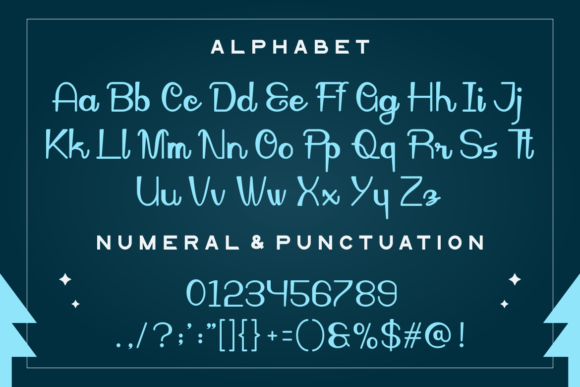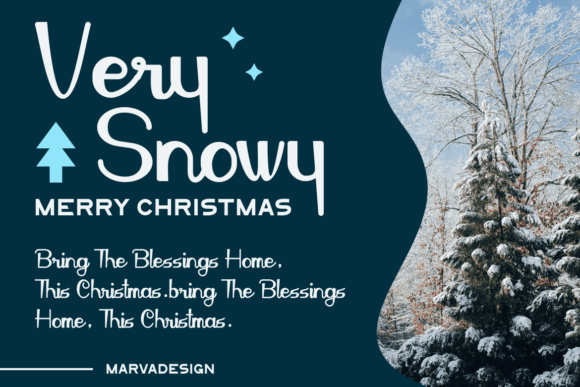
About Snow Effect Font
Snow Effect Font Download brings warmth, friendliness, and a sprinkle of fun to every creative project. Designed to feel like natural handwriting, this playful script font adds personality and charm without compromising readability. Whether you’re crafting holiday cards, designing digital content, or working on school presentations, Snow Effect is a versatile typeface that brings joy to the page.
Its rounded forms, consistent stroke weight, and relaxed rhythm make it approachable and easy to use—even for beginner designers or hobby crafters.
A Handwritten Style That Fits Any Season
Despite its winter-themed name, Snow Effect is suitable for year-round projects. The name may hint at festive cheer, but the font’s design is clean and flexible enough for many styles and occasions.
Perfect for:
Greeting cards and party invitations
Instagram graphics and Pinterest posts
DIY craft labels and stickers
Digital presentations and school projects
Journals, scrapbooking, and planners
Whether you’re designing for kids, events, or brands that want a friendly image, this font brings approachability to your layout.
The font includes uppercase and lowercase characters, punctuation, numbers, and multilingual support. Its neat construction ensures clear readability even at smaller sizes, making it great for text-heavy designs like flyers or instructional materials.
Naturally Friendly and Fun
What makes Snow Effect stand out is its casual, handwritten style that feels personal and sincere. It doesn’t try too hard—it simply works. Each letter looks like it was written by hand, yet the font maintains a consistent shape and spacing that ensures professional polish.
Use Snow Effect alone as a display font or pair it with a clean sans-serif to create typographic contrast. It also works well when layered over colorful backgrounds, adding a warm and inviting tone to your visuals.